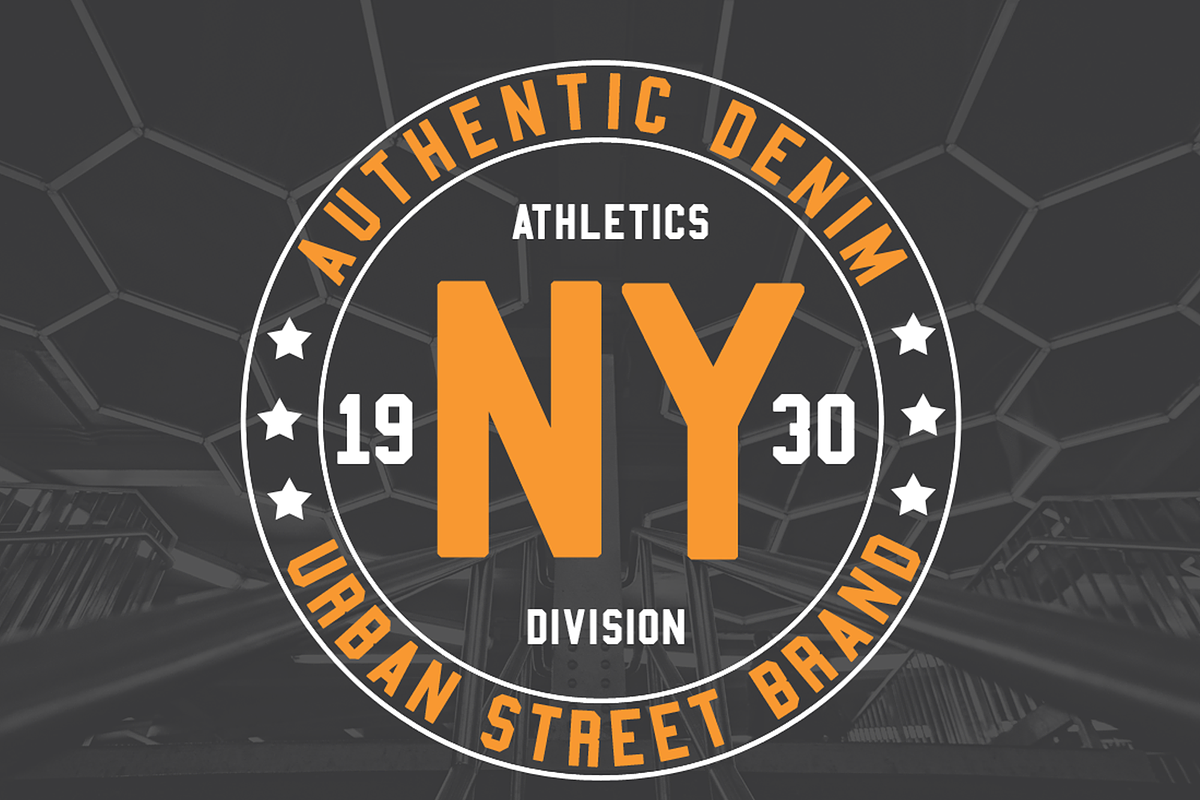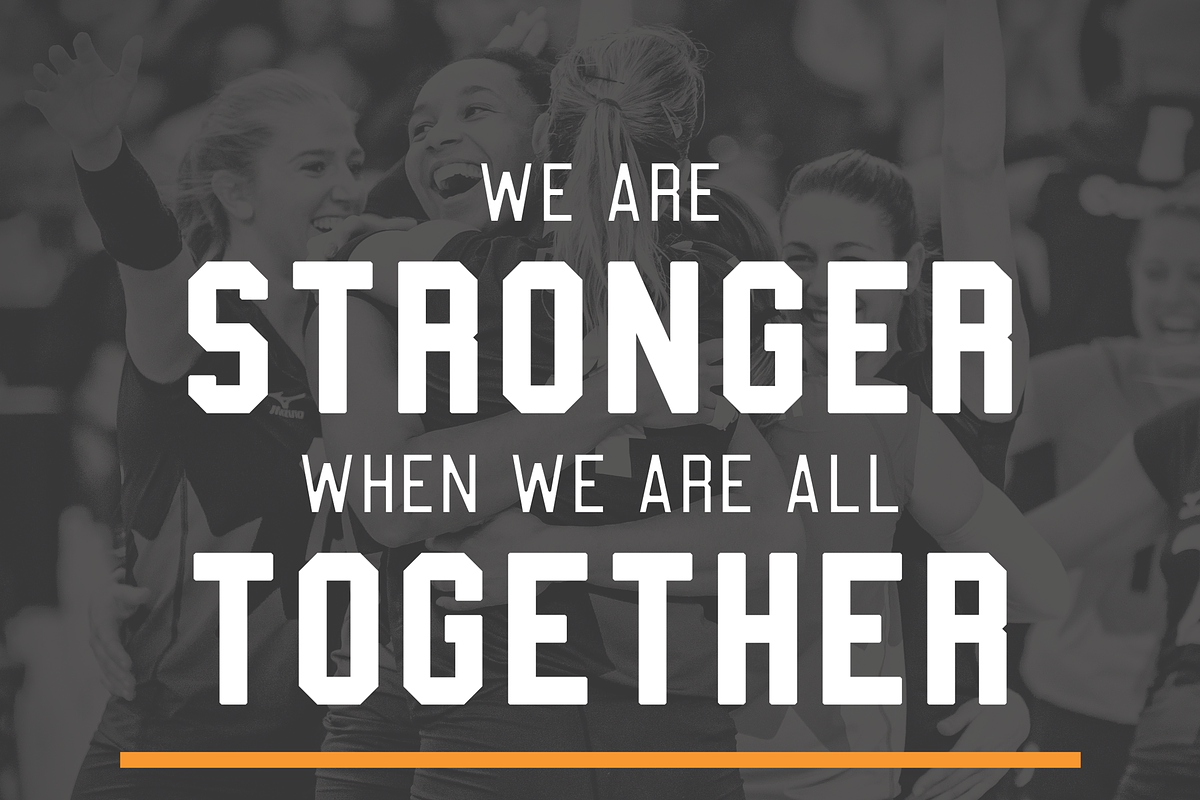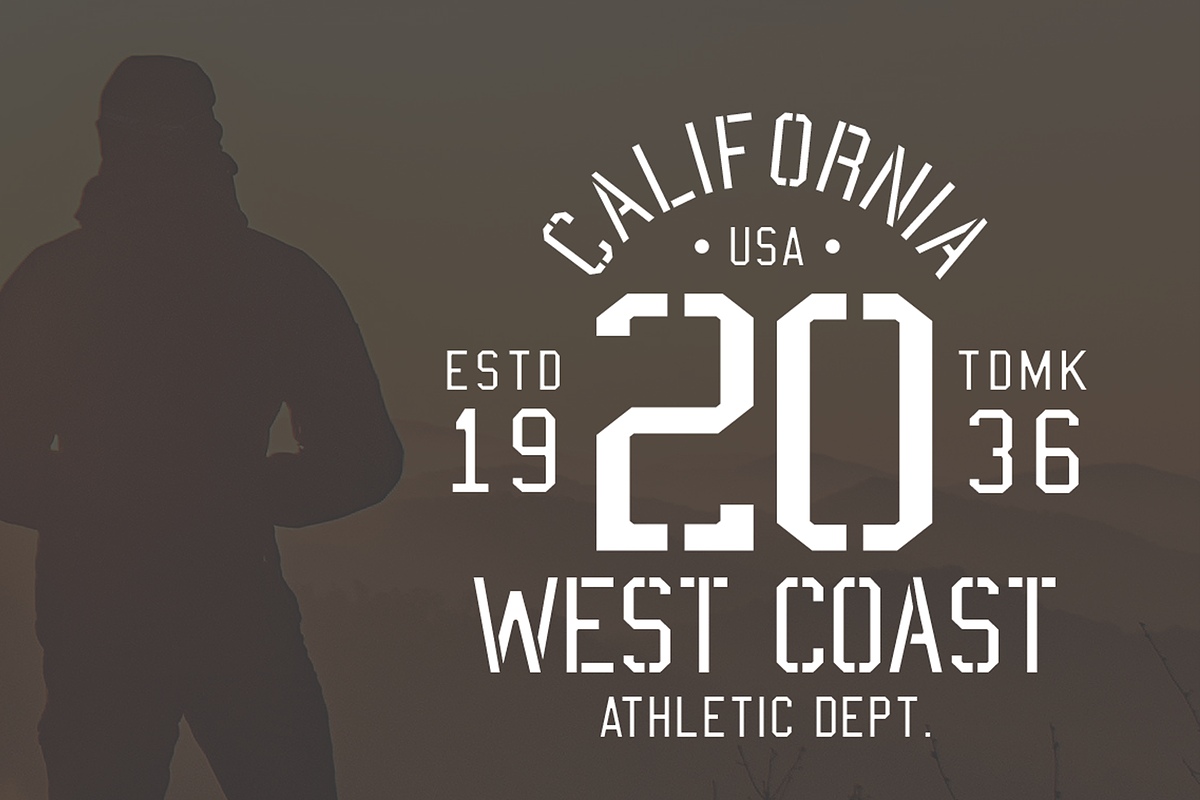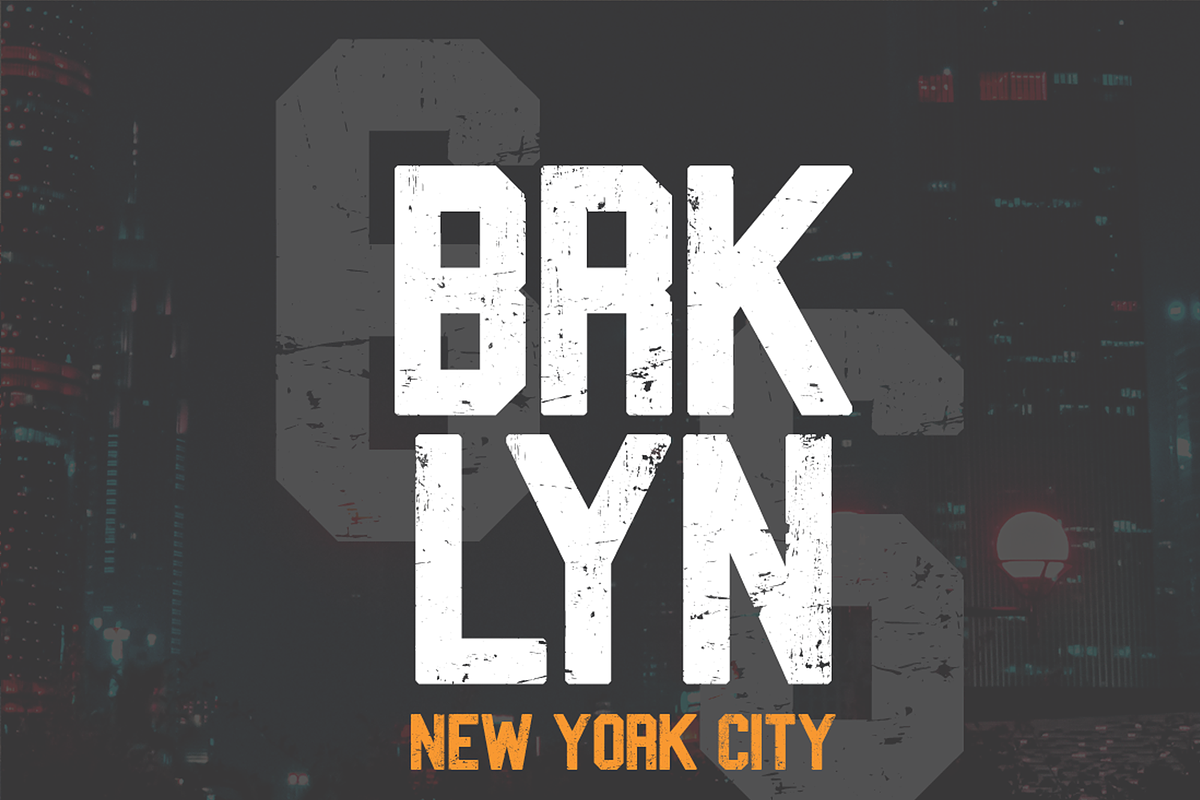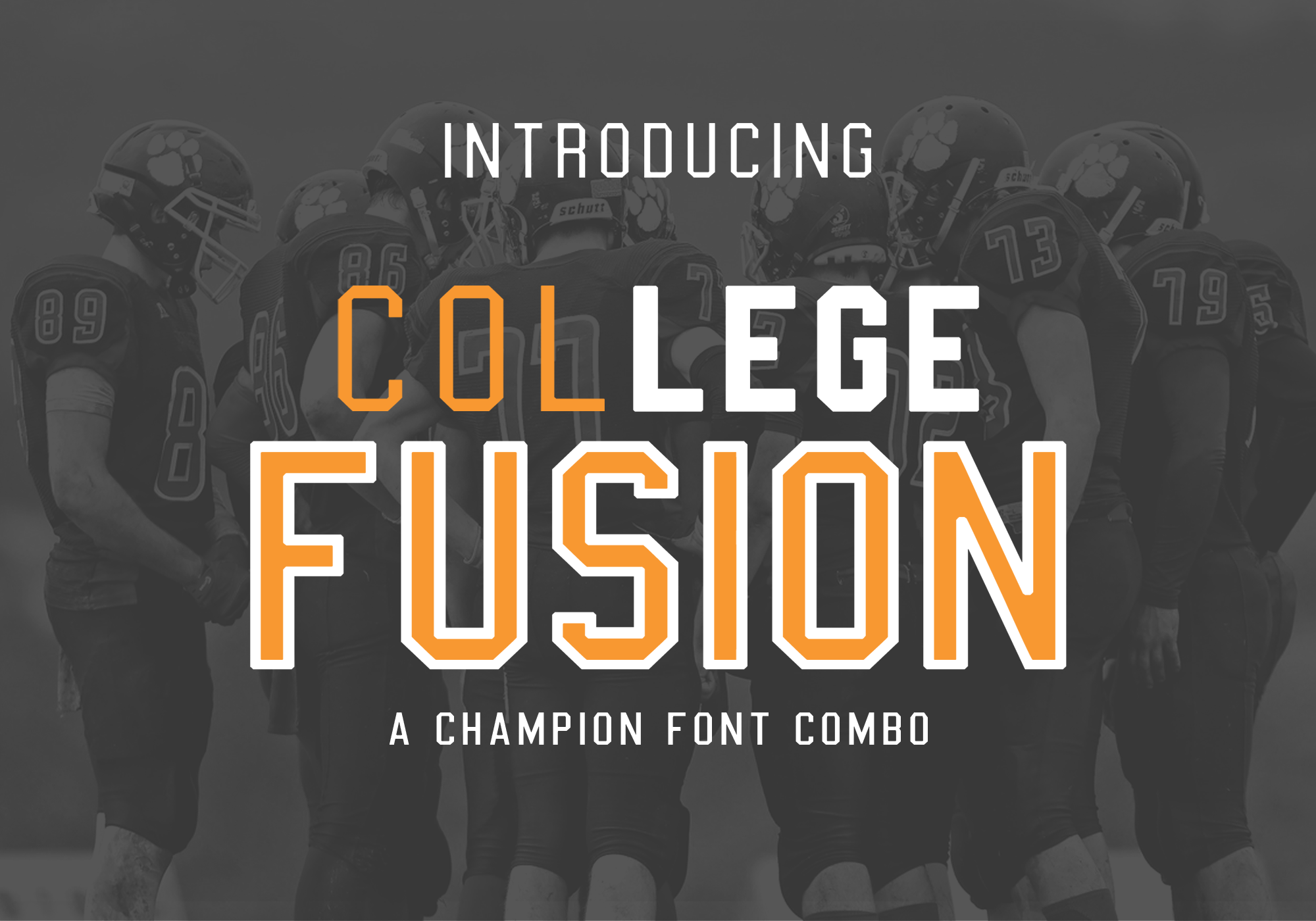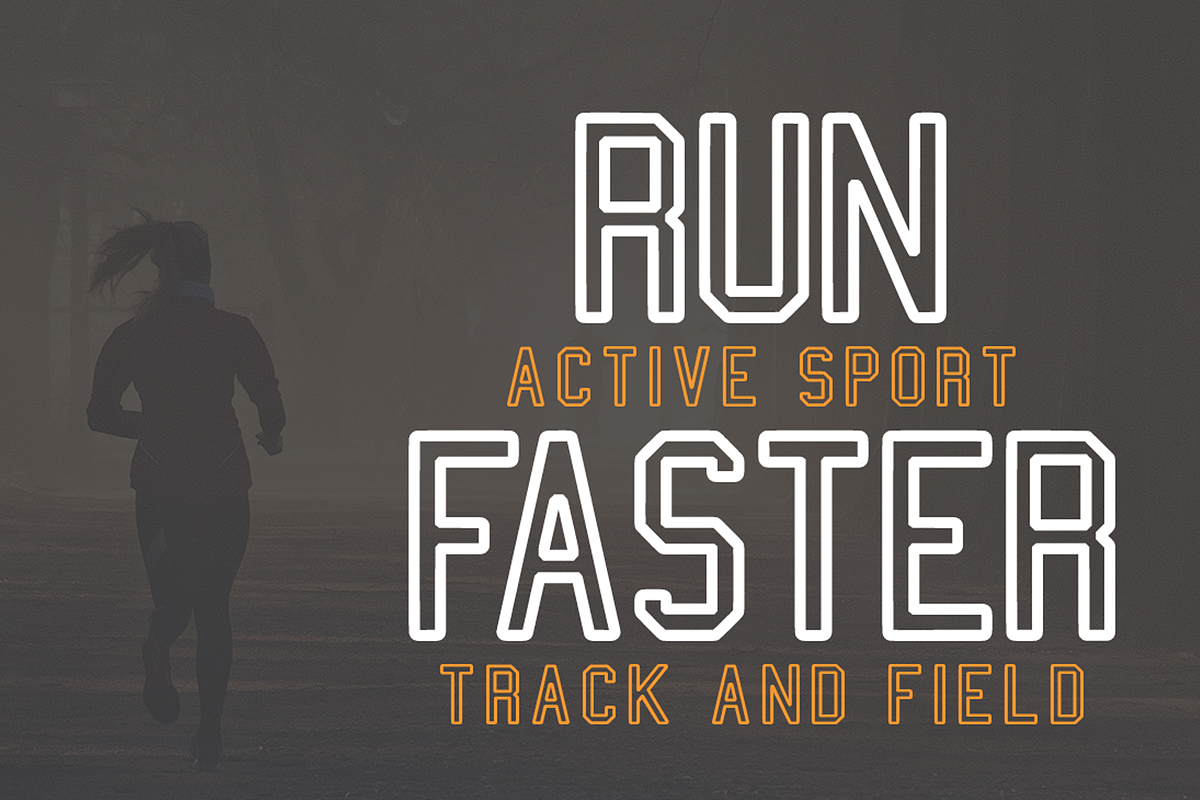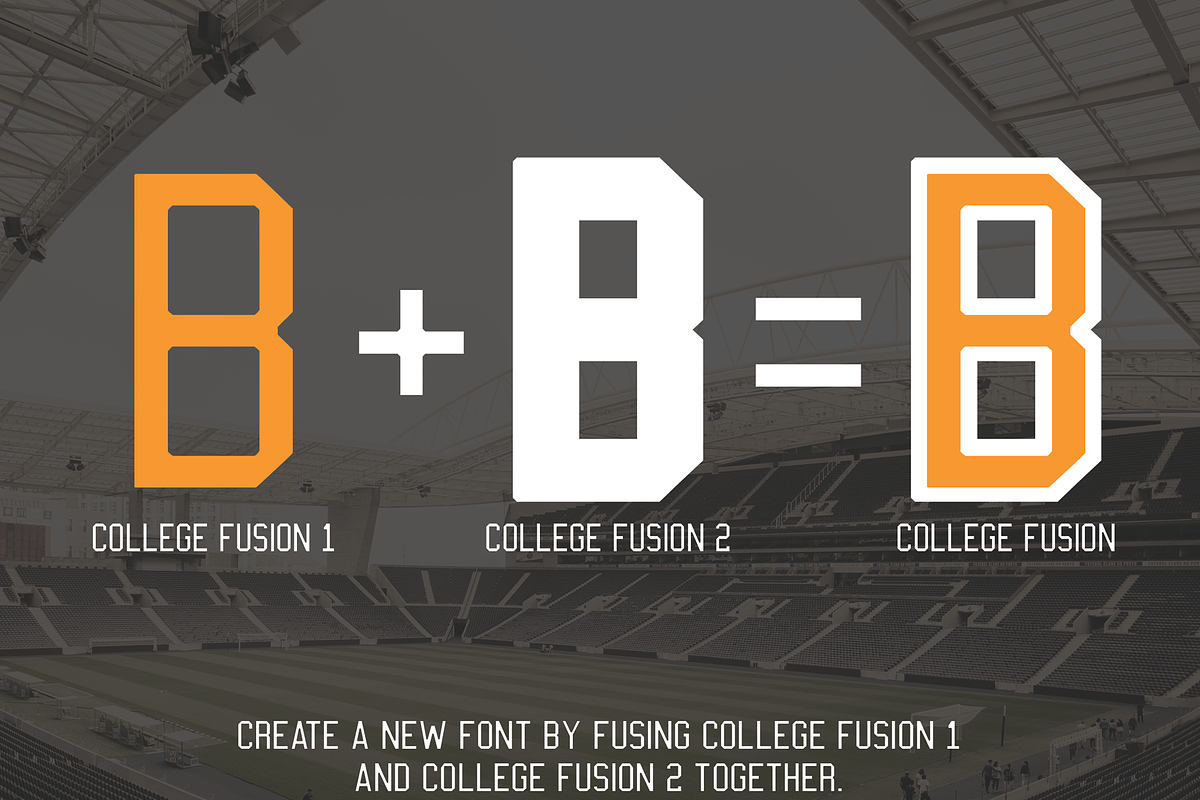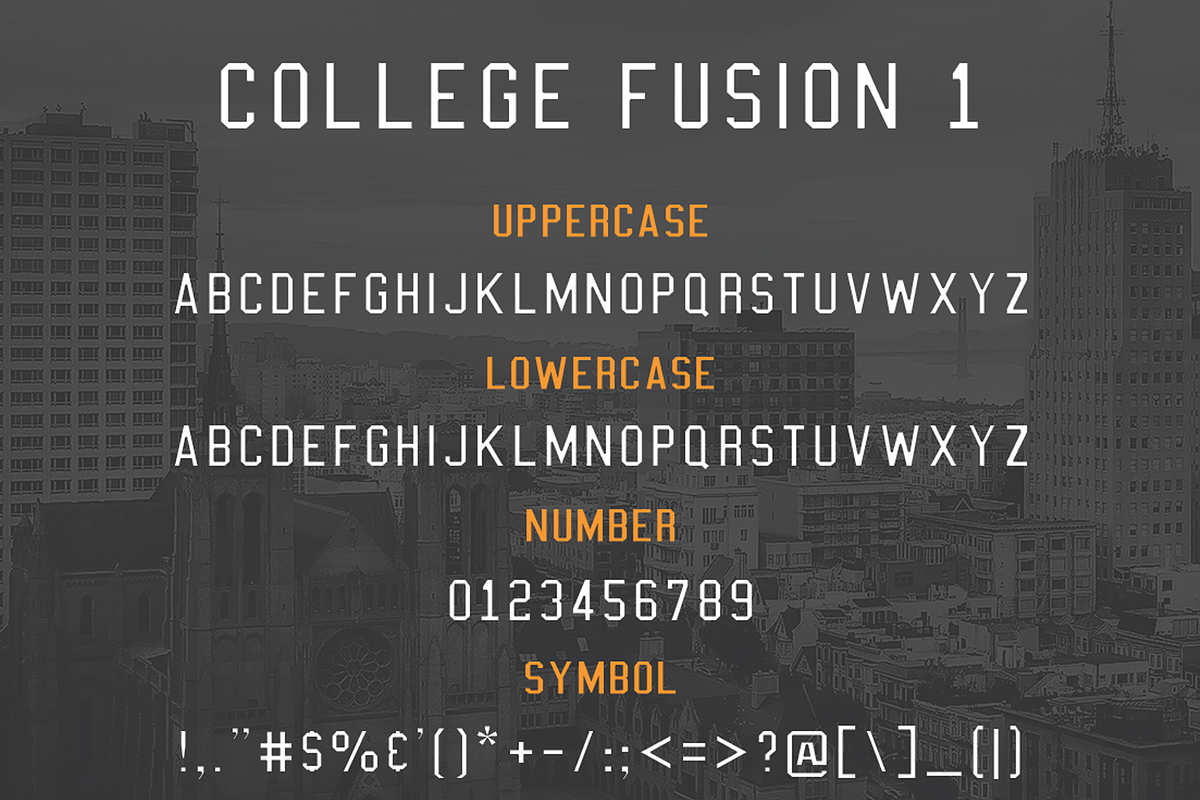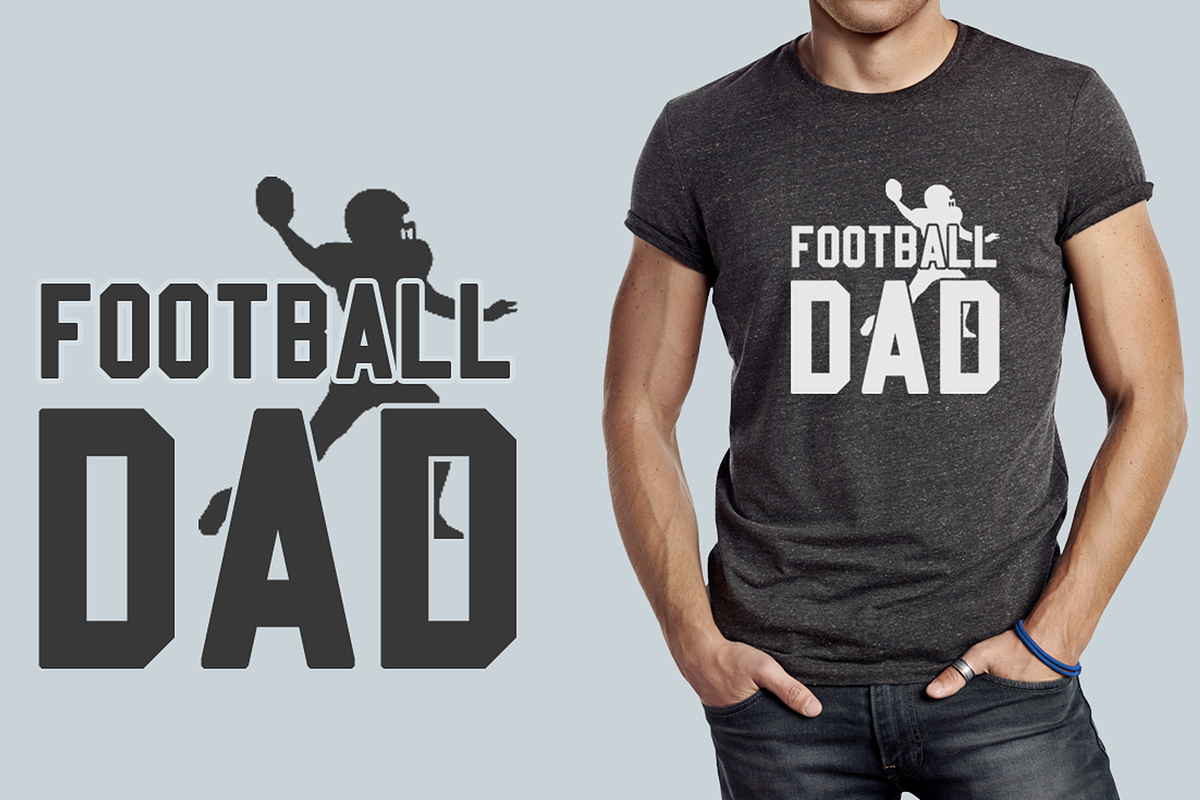
College Fusion Font Combo
The College Fusion font combo lends itself to many different styles of projects. Layer College fusion 1 & 2 in different colors to get a miraculous new look.
Included in the pack, get 4 extra fonts to help you create magnificent designs.
Perfect for sweatshirt, t-shirt, banner, logo, web and editorial design, to name just a few – it has many different options.